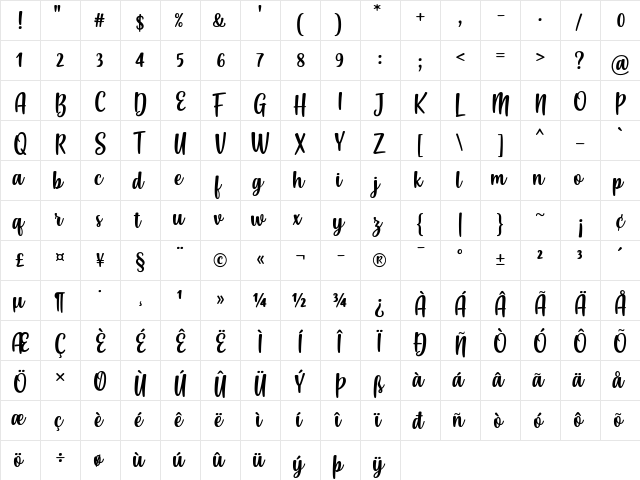
Misses Regular
| Foundry | 7NTypes |
| Designer | Situjuh Nazara |
Design Context for Misses Typeface
Misses is a composed and adaptable typeface that performs quietly and consistently across a wide range of design contexts.